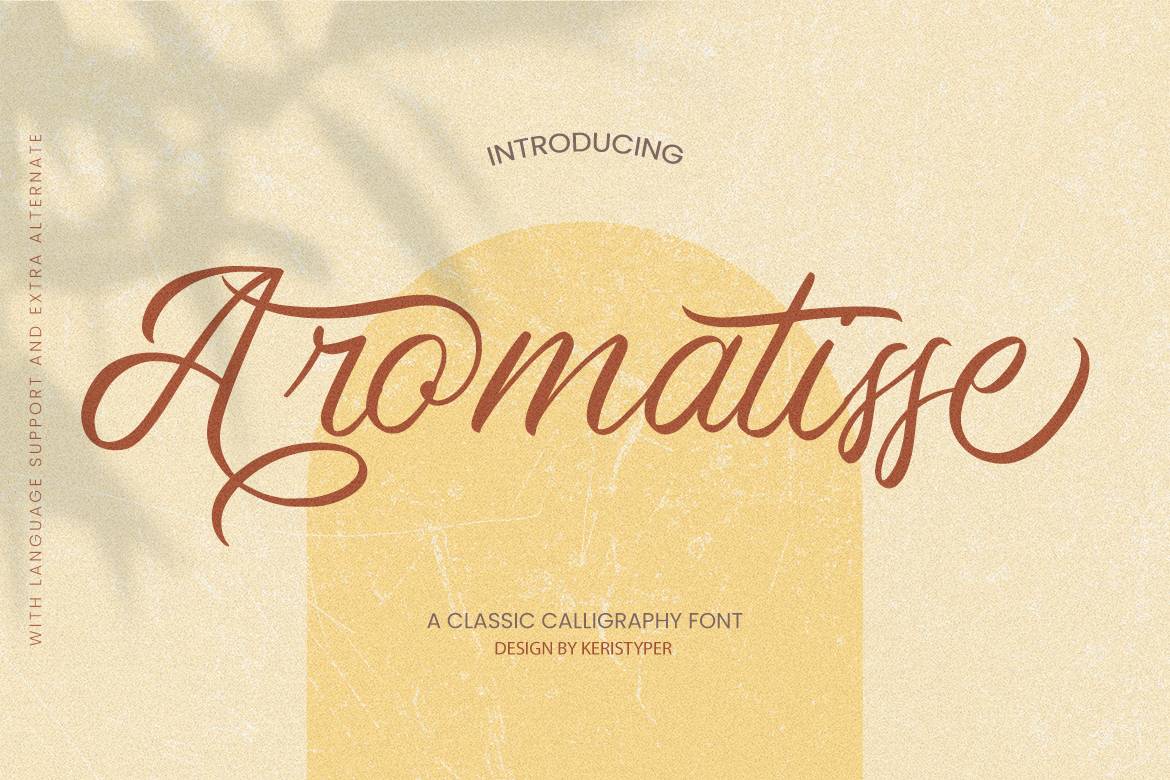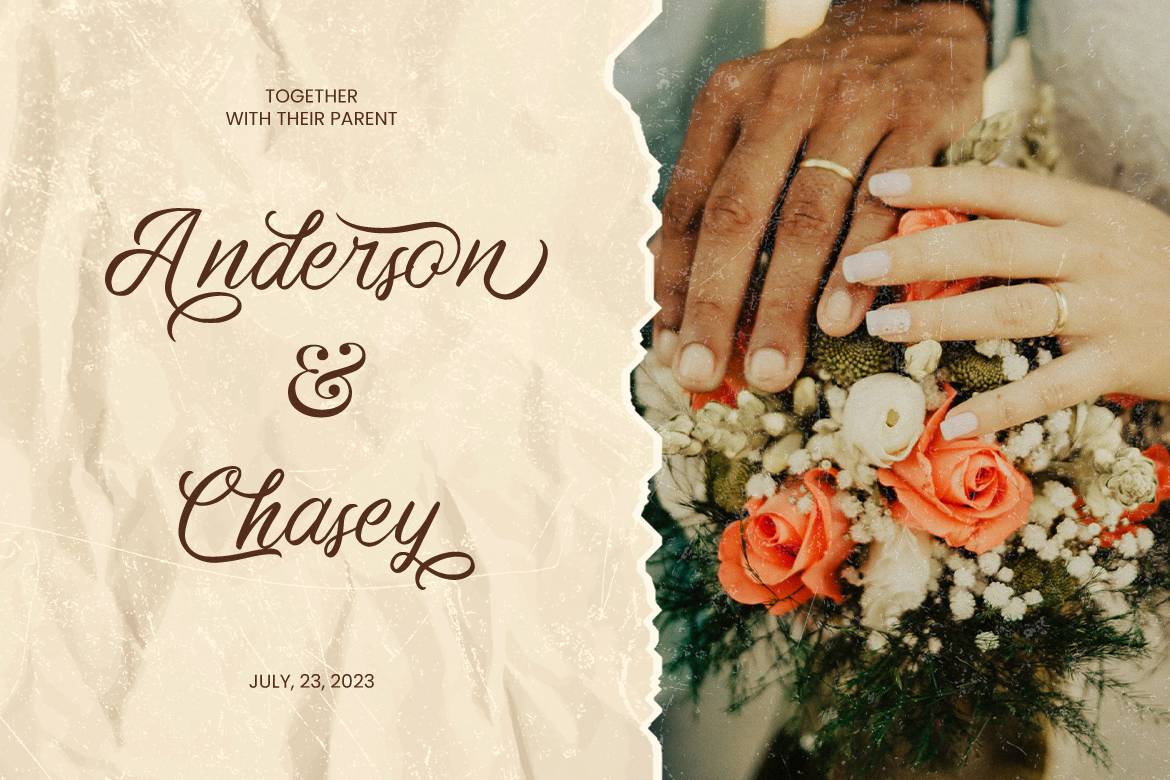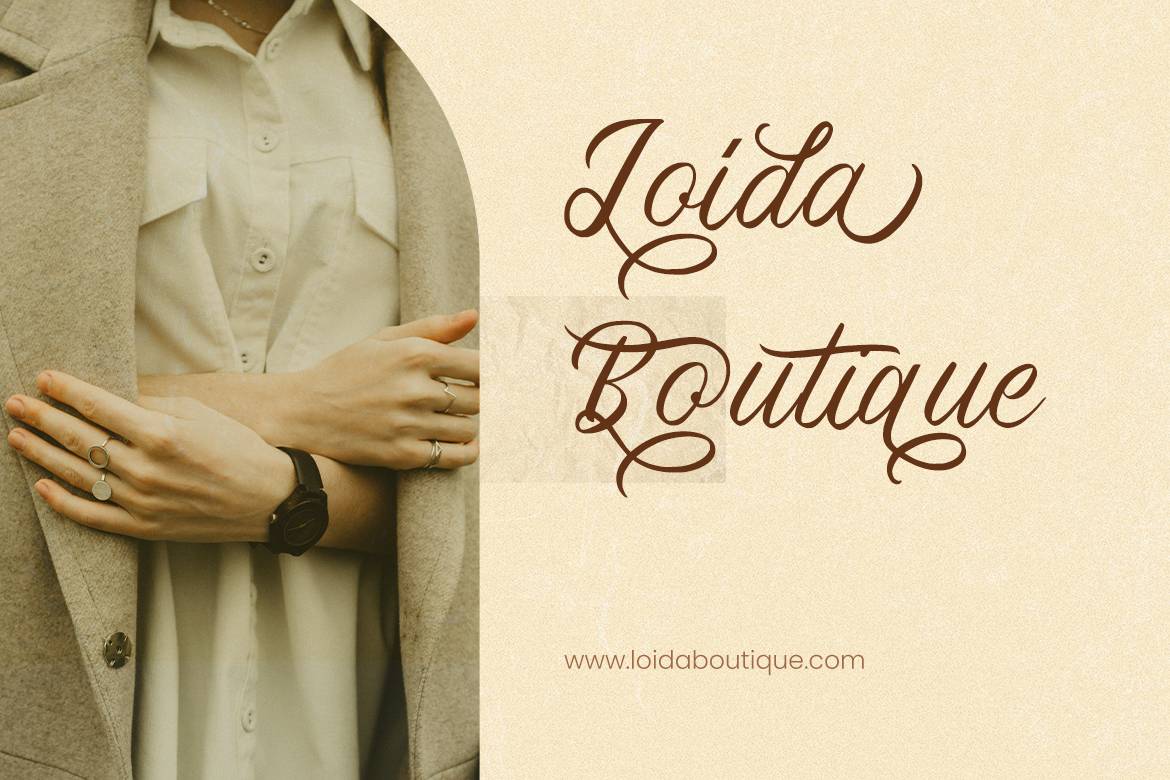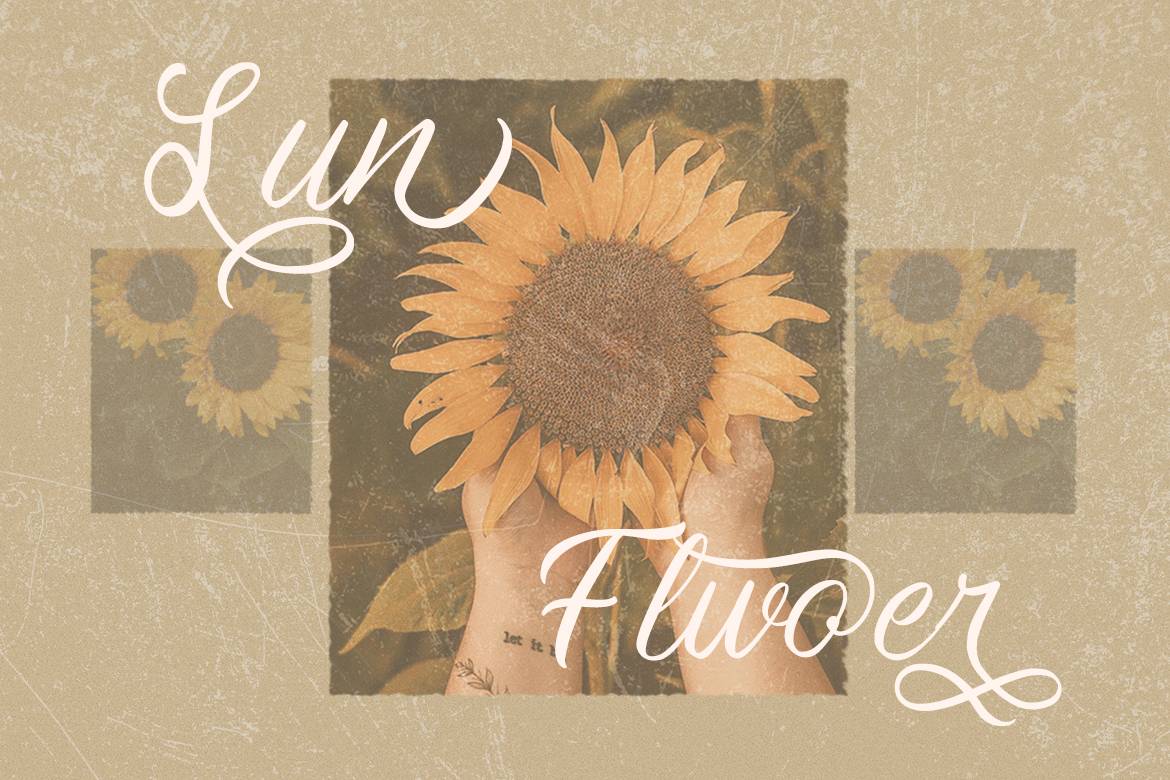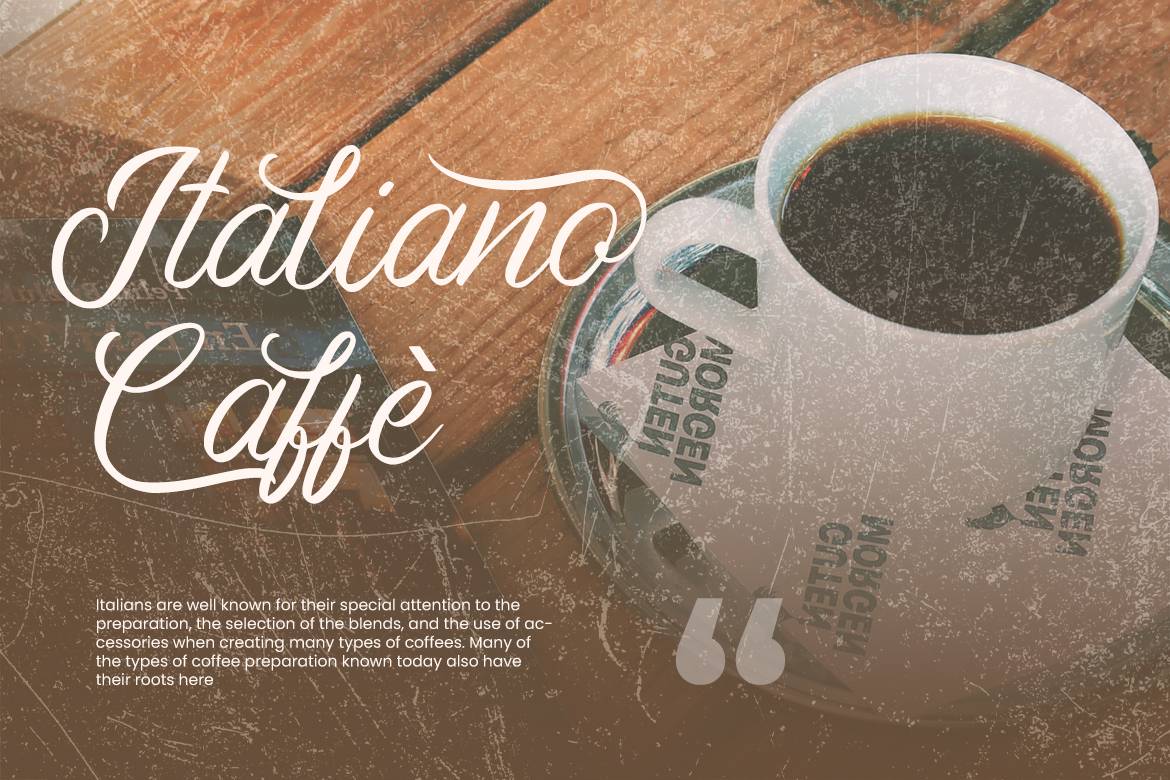
Aromatisse is an elegant, script-style font with a refined, handwritten feel that combines smooth, flowing strokes with a slightly narrow width. Its light weight and delicate curves create a sophisticated and graceful appearance, making it perfect for luxury branding, invitations, and stylish editorial use. This font’s classic charm and legible yet decorative letterforms work well in settings where a touch of elegance and personality is desired.
Aromatisse Font
About Aromatisse Font
| Font family | Aromatisse Font |
| Designer | Tezar Tantular |